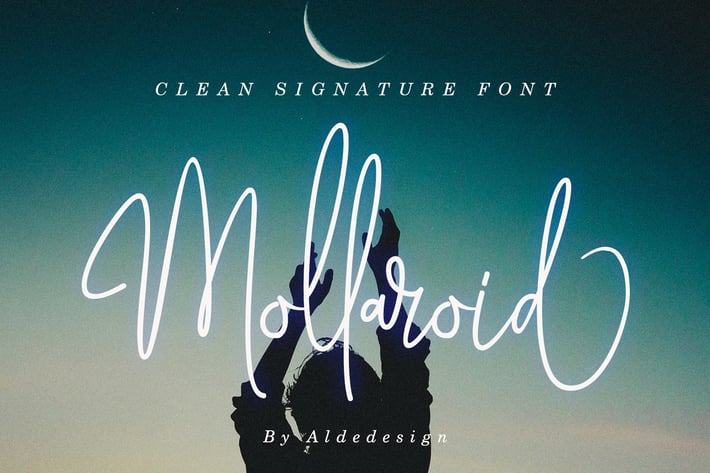
Mollaroid | Signature Font
MOLLAROID is a signature font with simple and classy taste, comes with Elegant Beginning and Ending tails (Swash & Titling), also has OpenType features such as ligatures. We keep this font looks classy, readable, elegant, stylish, catchy, and absolutely easy to use.
MOLLAROID is the great choice for a watermark on photography, signature or signature logo design, album cover, business card, quotes, and many other design projects.
Each font has:
Stylish handwritten style
Special Ligatures
Special Swash (Beginning Tails)
Special Titling (Ending Tails)